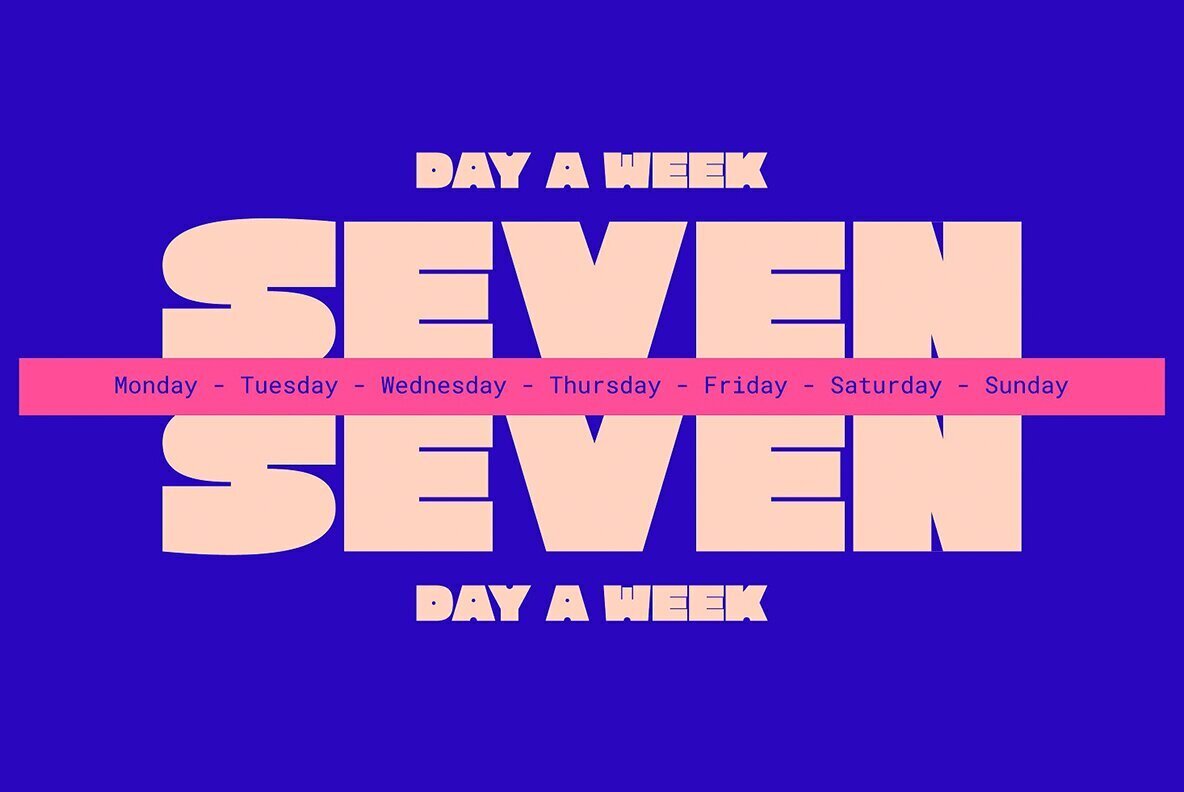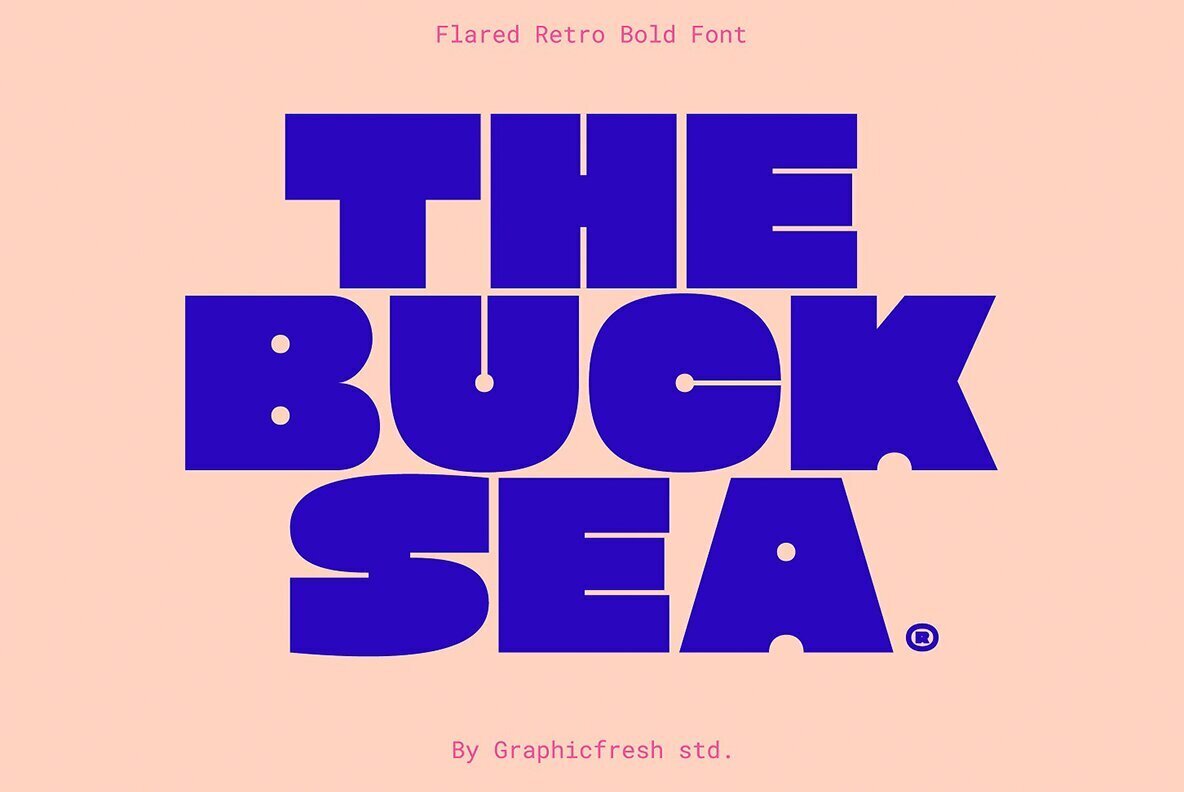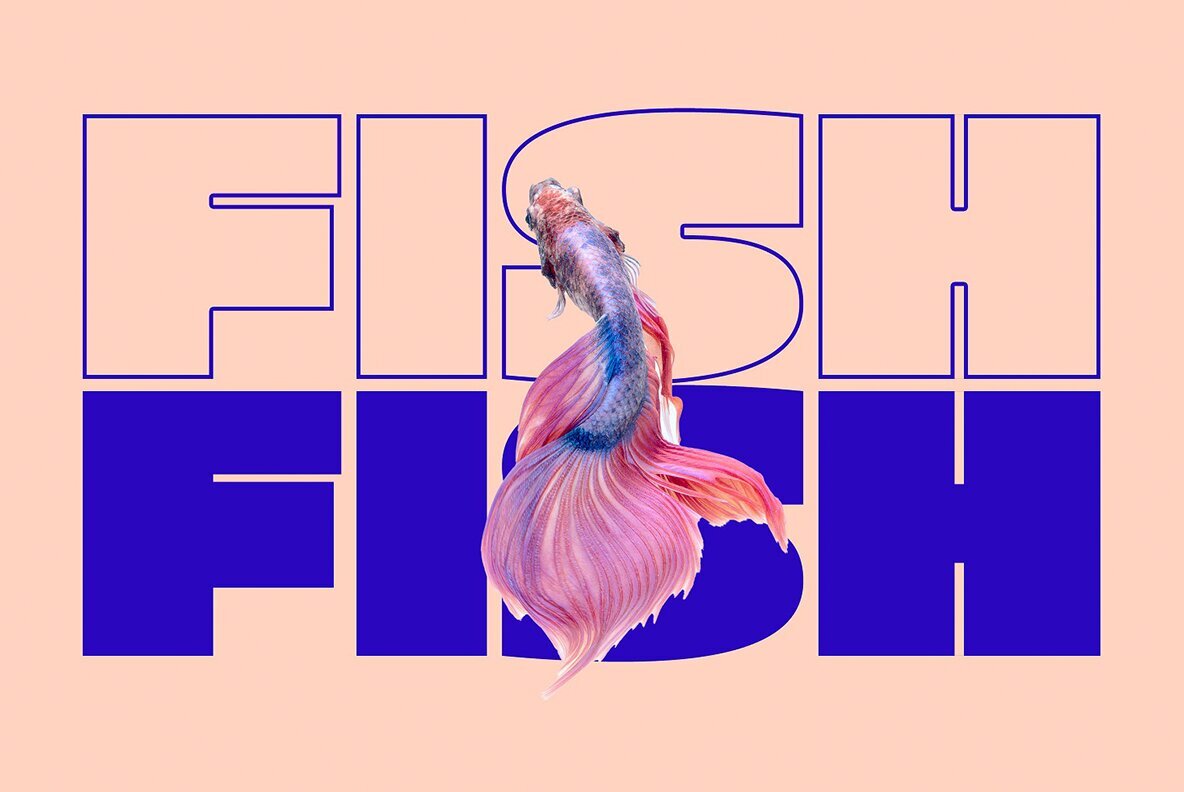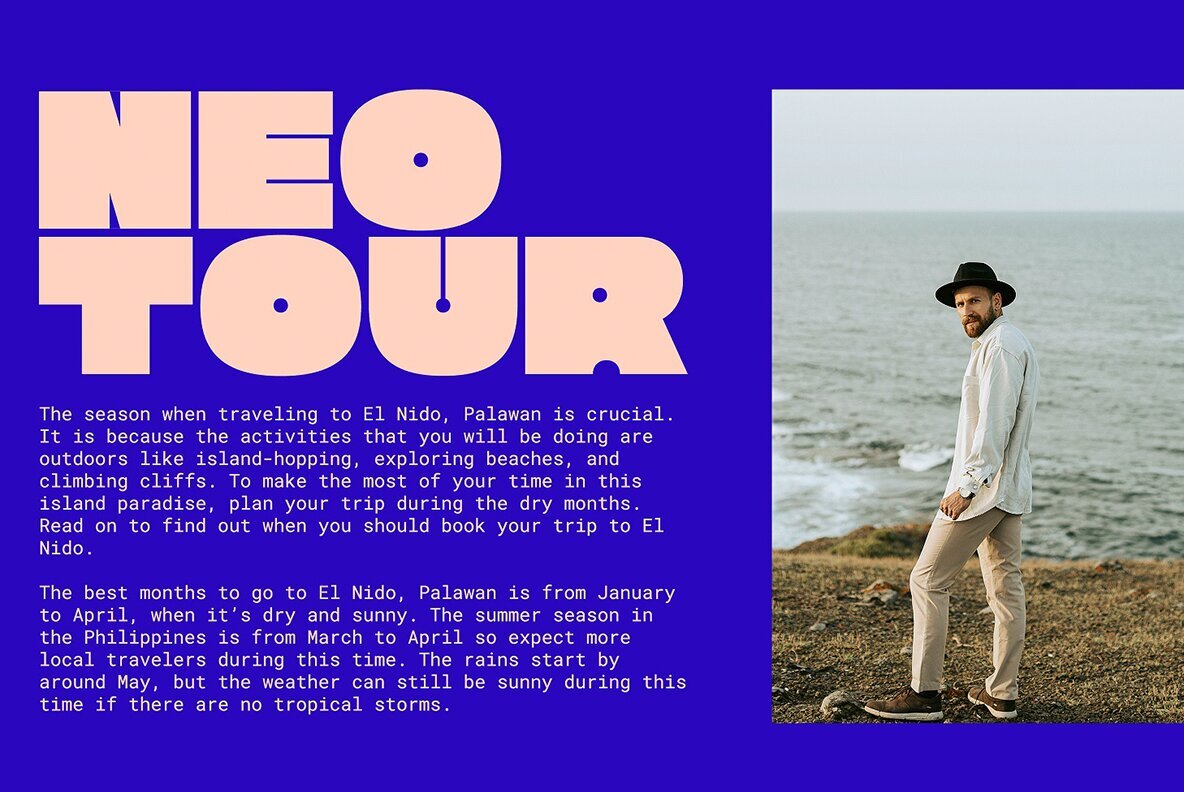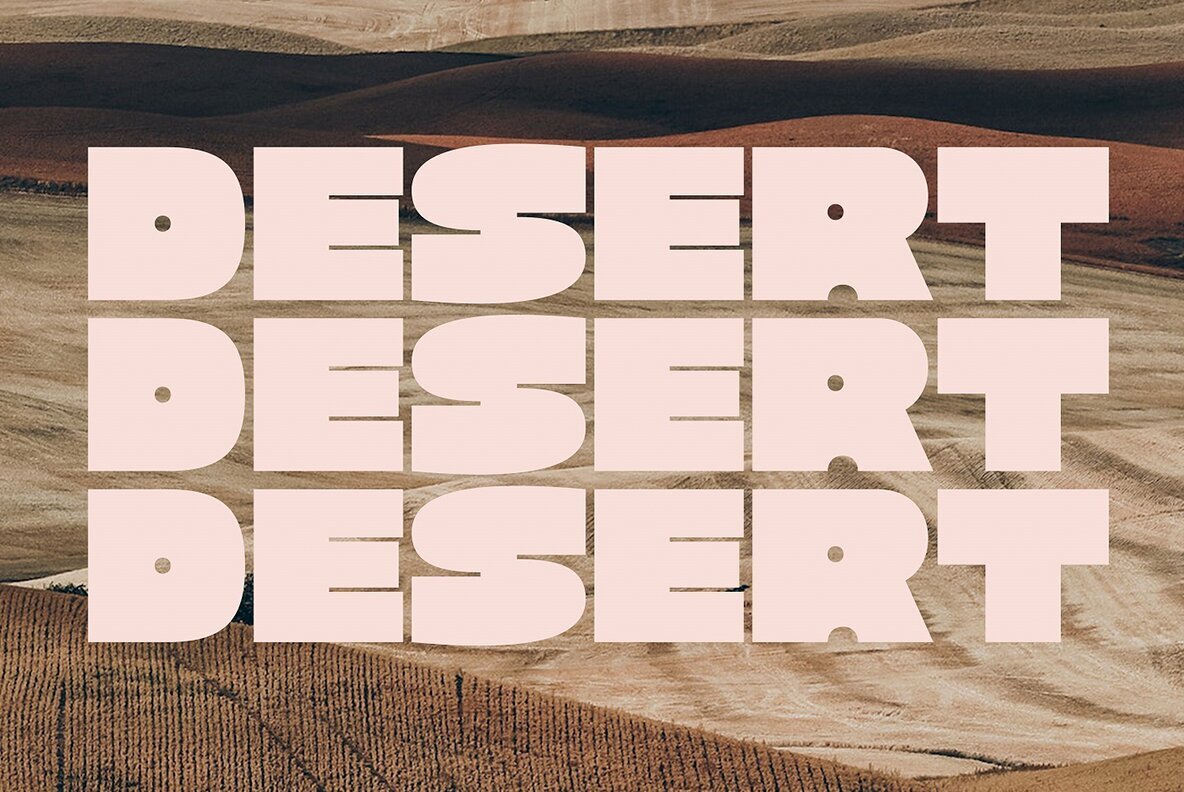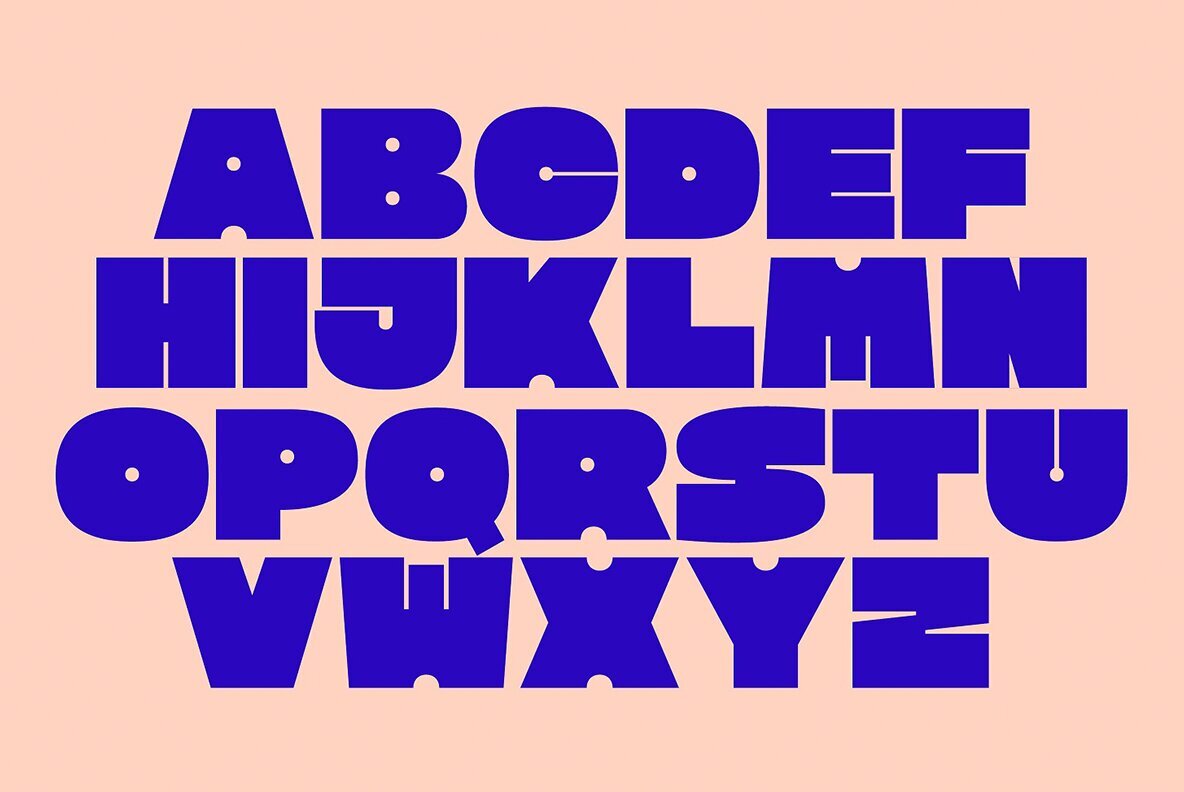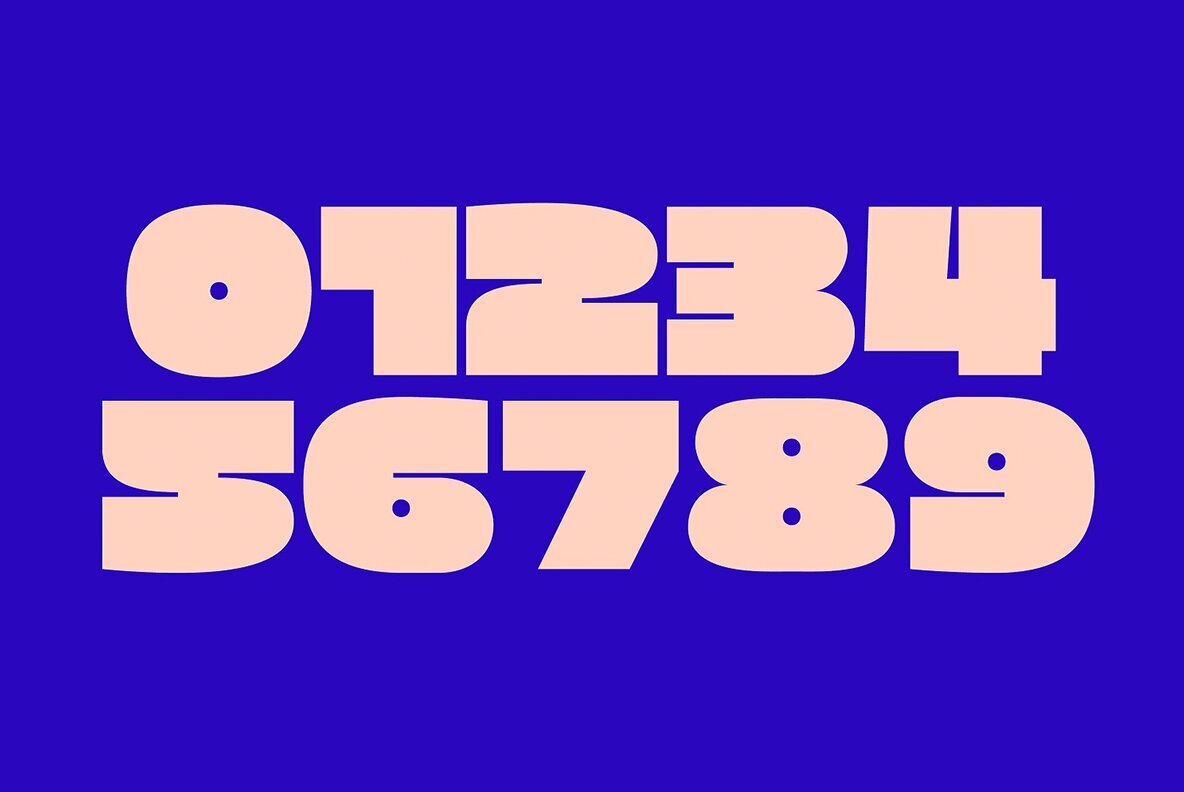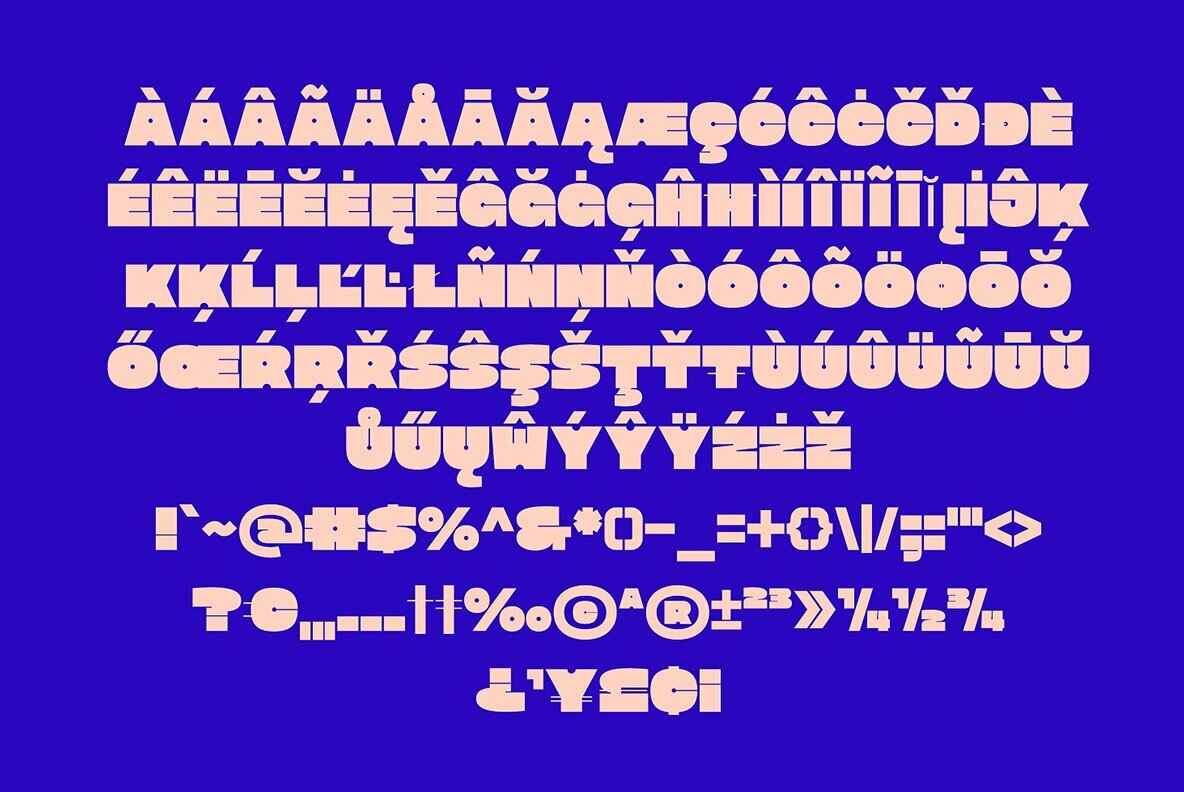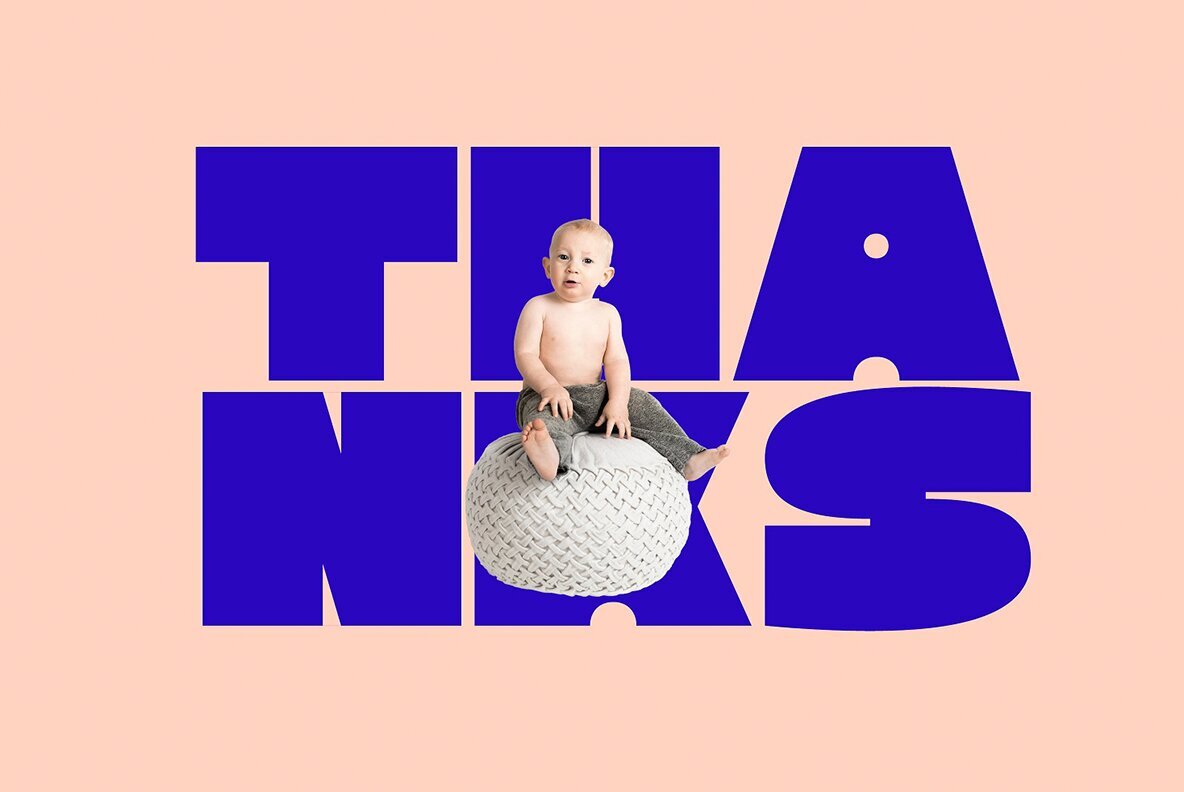
Flared Font
Flared
A groovy, bold typeface that transports you back to the 70s and 80s. Its sleek curves and sharp angles evoke the spirit of neon signs and vintage design. Get ready to captivate with this striking font that exudes nostalgic coolness.